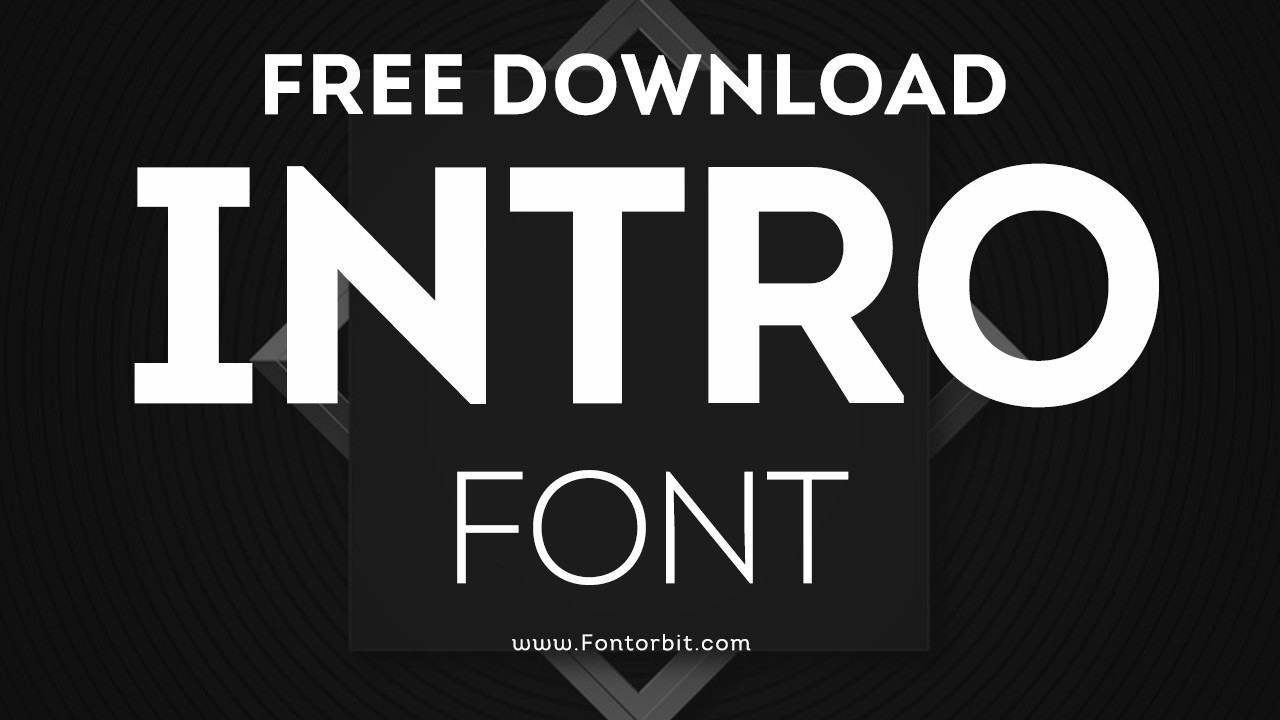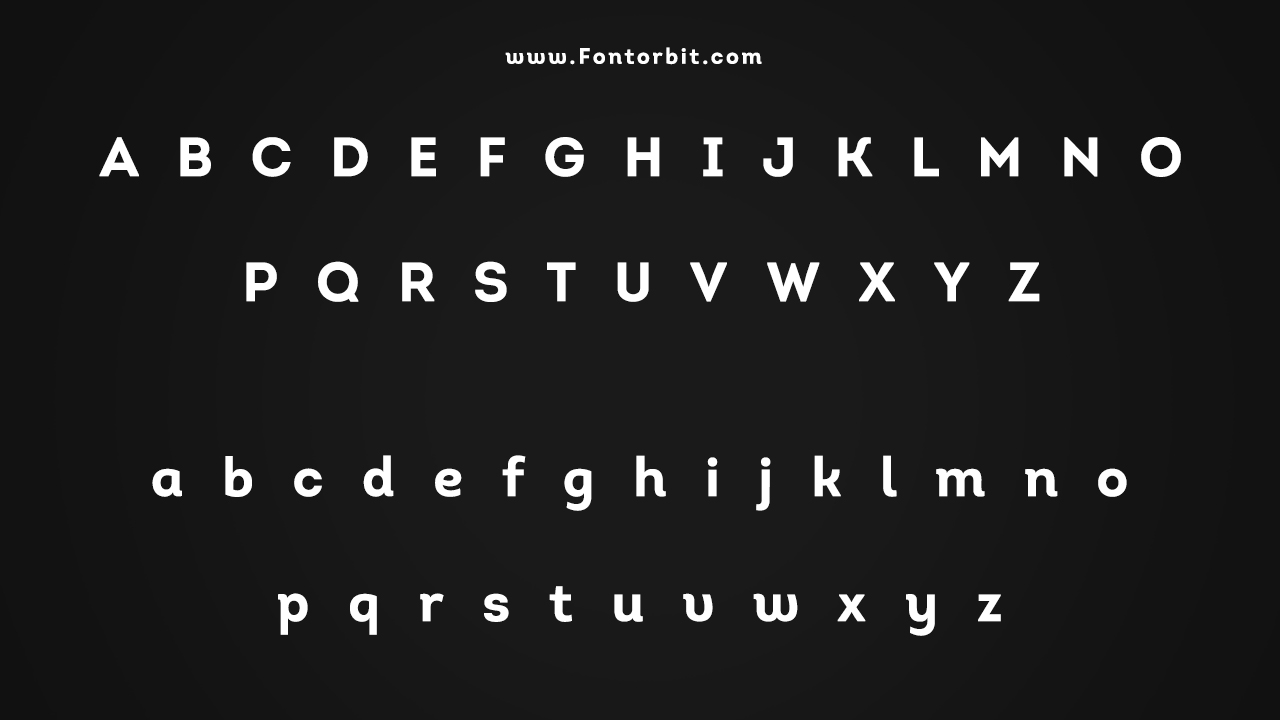
The intro is a modern sans-serif typeface designed by Svet Simov and published by Fontfabric. First introduced in 2012, it has become popular for its clean and geometric design, making it ideal for various design projects. The Intro family includes various styles, allowing for print and digital media versatility.
Intro Font Family Includes
The Intro font family includes several weights and styles, offering flexibility for different design needs. With clear lines and distinct character shapes, this font family is suitable for both professional and creative use.
- Intro Regular Alt
- Intro Book Alt
- Intro Thin Alt
- Intro Light Alt
- Intro Bold Alt
- Intro Black Alt
Notable Uses Of The Intro Font
The Intro font is widely used for branding, advertising, and editorial design. Its geometric structure makes it highly legible, even in smaller sizes, making it perfect for website headers, magazine covers, and posters. Additionally, its modern and minimalistic style is often chosen for corporate branding and logos.
The Intro font is best used in situations where clarity and professionalism are key. Some great applications include:
- Corporate logos
- Web design (especially headers)
- Magazine titles
- Posters and advertisements
- Product packaging
- Business cards
Its clean lines and versatile styles make it suitable for both print and digital use.
Intro font offers a balance between modernity and simplicity, making it ideal for various design purposes. Its wide range of weights and styles ensures that it can fit into almost any project, whether you’re designing for the web or for print.
3.What Style Of Design Is The Intro Font Best For?
It’s ideal for modern, minimalist, and professional designs.
4.Does Intro Support Multiple Languages?
Yes, it includes a variety of international characters.
6.Is Intro Font Suitable For Mobile Apps?
Yes, its clean lines make it legible on small screens.